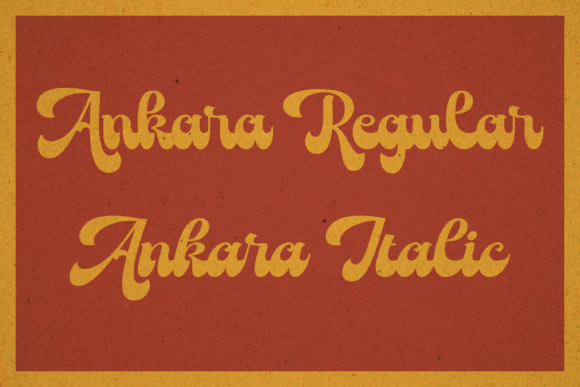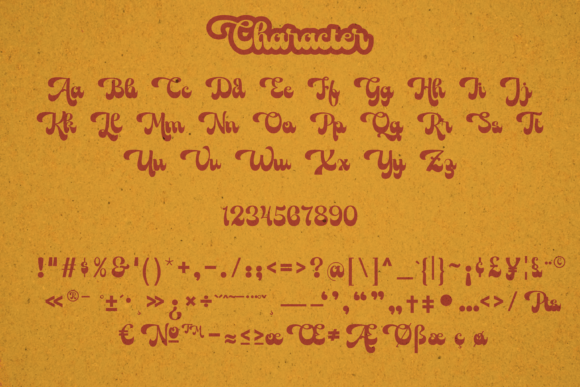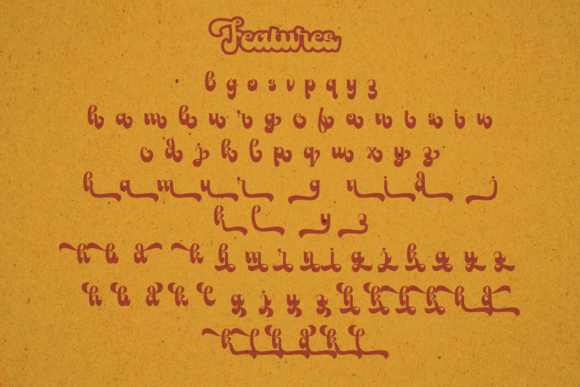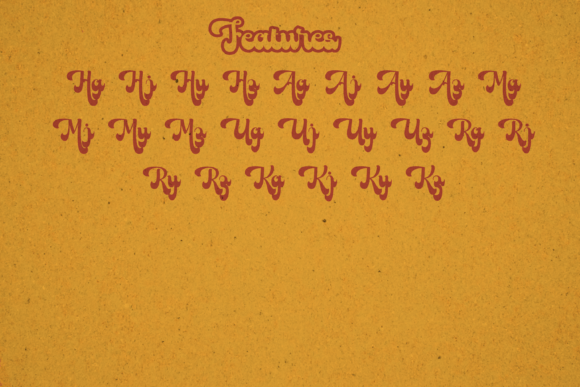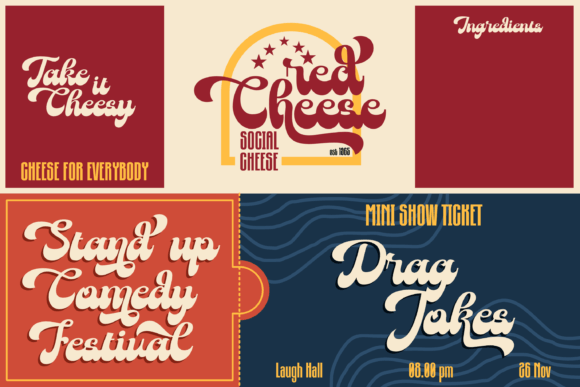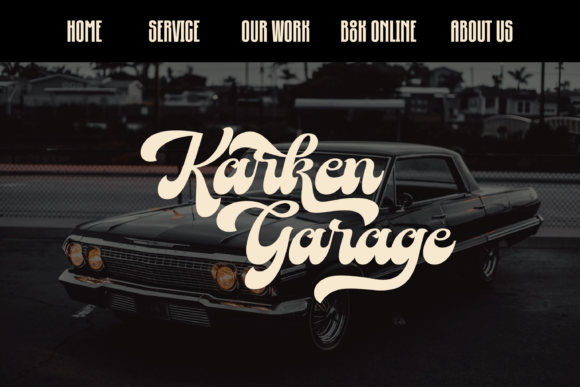
The Perfect Blend of Vintage Charm and Modern Flair: Introducing the Ankara Font
Have you ever been browsing through a vintage store, stumbled upon an old record, or watched a classic movie and felt an instant rush of inspiration? For designers, moments like these can spark the creativity needed to bring a project to life. And, for those who love the aesthetic of the past, the Ankara Font is a treasure trove of vintage charm and modern flair.
This stylish font comes in two versatile styles: regular and italic, making it an ideal choice for logotype, headlines, and corporate identity projects. Whether you’re working on a music album, a movie poster, or a YouTube video, the Ankara Font is sure to add a touch of sophistication and timelessness to your design.
Ankara Font Key Features
- Unique Characteristics: Ankara Font features a unique blend of modern and traditional Turkish calligraphy, making it ideal for use in cultural and historical contexts.
- Font Style: Ankara Font is available in a variety of styles, including regular, bold, italic, and bold-italic.
Ankara Font Review
As a designer, I’ve had the chance to work with various fonts, and I must say, Ankara Font is an interesting one. Here’s my honest take on it.
- Unique aesthetic: Ankara Font has a distinct, eclectic vibe that can add a touch of personality to your designs.
- Good for display text: Its bold, cursive strokes make it perfect for headings, titles, and other display text elements.
- Legible at various sizes: Ankara Font holds up well even at smaller font sizes, making it a good choice for body text.
- Limited language support: Ankara Font may not be the best choice for languages that require more nuanced typography, like Arabic or Chinese.
- Not ideal for body text: While it’s legible at smaller sizes, Ankara Font can feel cluttered and overwhelming for extended blocks of text.
- Lack of subtlety: Its bold, cursive style can be overwhelming if used too extensively.
Ankara Font is a fun, attention-grabbing font that’s perfect for adding a pop of personality to your designs. However, it’s not a one-size-fits-all solution and should be used judiciously. When used correctly, it can add a unique touch to your work, but overuse can lead to visual fatigue. As with any font, it’s essential to weigh its strengths and limitations before deciding whether it’s right for your project.